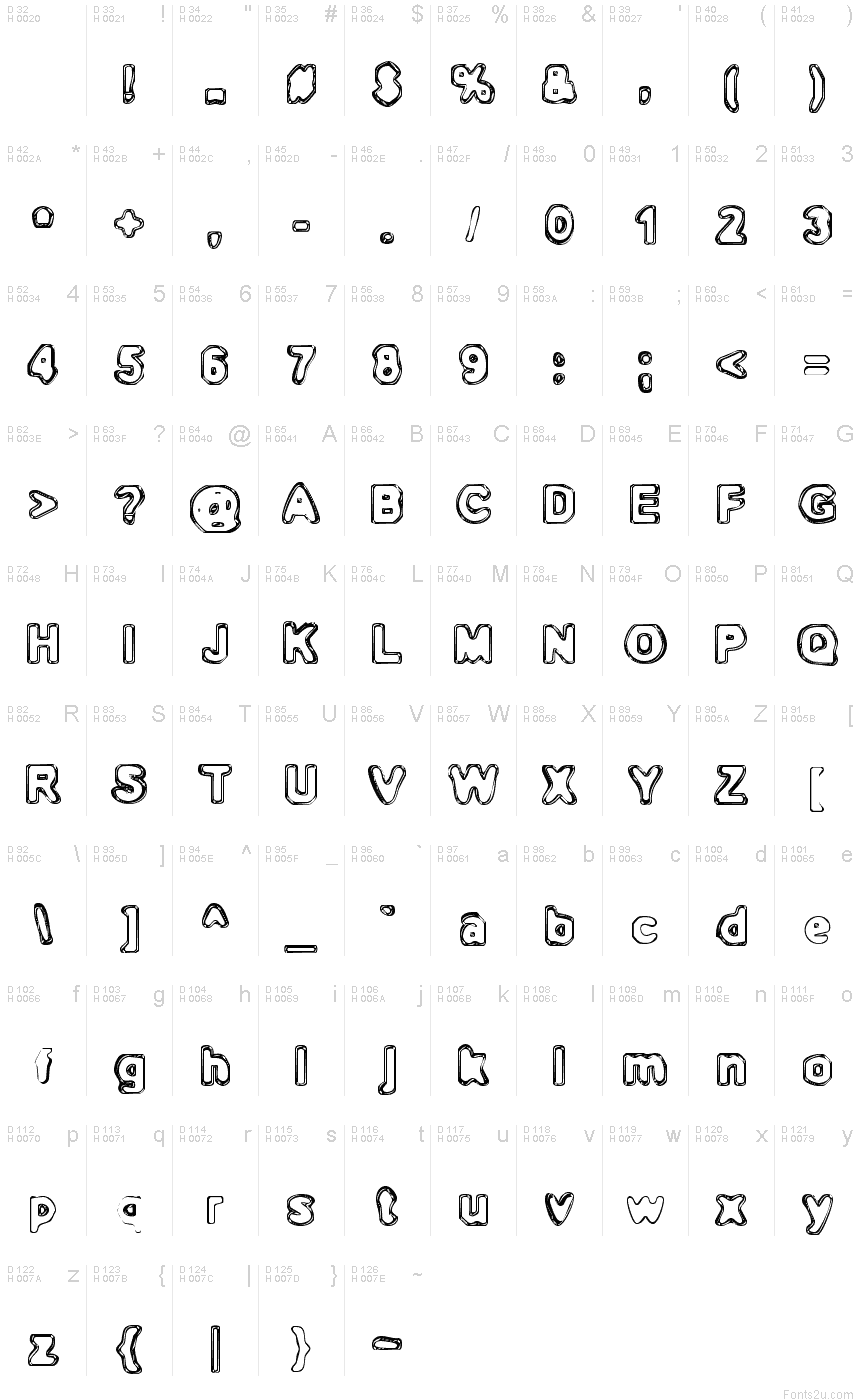
BN-Outer Line
BN-Outer Line font by Ben Nathan is a free decorative outline typeface that turns lettering into puffy, hand-drawn tubing. The chunky forms and doubled contours feel like a marker sketch traced twice—playful, a little wobbly, and full of bounce. It grabs attention without needing heavy fills, so your words stay airy while still reading loud.
Using BN-Outer Line, you’ll get lively energy on stickers, kids’ party invites, arcade-style posters, comic headings, YouTube thumbnails, album covers, and bold packaging labels. This free font shines at larger sizes where the outline can breathe; give it a touch of extra spacing if your layout feels tight. Pair it with a clean geometric sans for captions to keep the chaos charming, not cluttered.